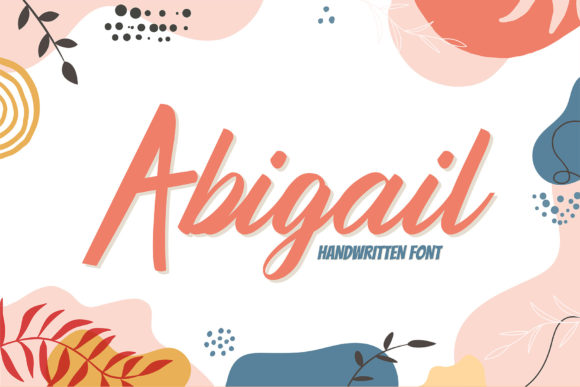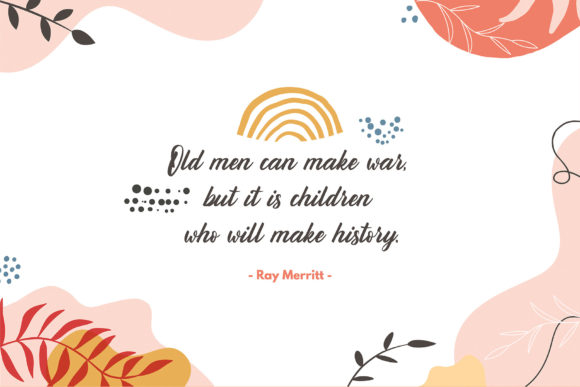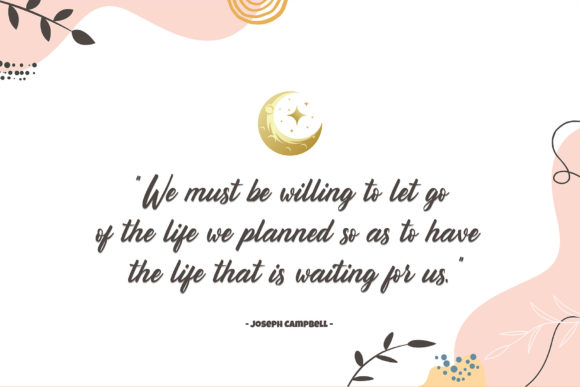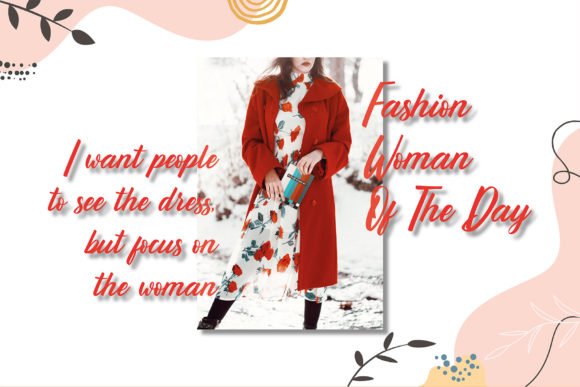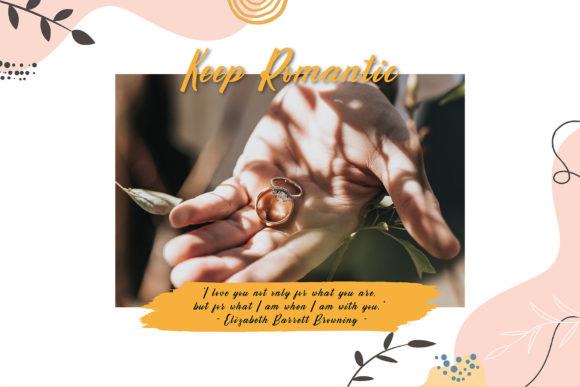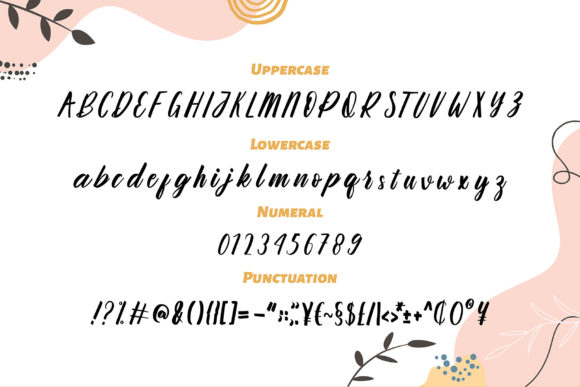
Abigail Font
About Abigail Font
Abigail introduces itself as a charming paint-brushed script font, adding a touch of loveliness and artistic flair to your creative projects. With its versatile appeal, this font is well-suited for an array of design applications, including logos, branding projects, labels, photography, watermarks, special events, and any other lovely projects requiring a beautiful script aesthetic.
The paint-brushed script design of Abigail sets it apart, infusing a sense of organic and handmade authenticity into your text. This unique characteristic makes it an ideal choice for projects that demand a balance between artistic expression and visual appeal.
In the realm of logos and branding, Abigail’s lovely script imparts a distinctive and memorable touch. Its paint-brushed strokes add an artistic dimension, creating a brand identity that is both charming and visually engaging.
For labels and photography, Abigail contributes to a visual language that is both expressive and elegant. The font’s script style seamlessly integrates into these projects, enhancing the overall aesthetic and bringing a sense of beauty to the design.
In watermark applications, Abigail adds a personalized and artistic signature to your images or creations. Its script design serves as a delightful touch, ensuring that your work is not only protected but also presented with a unique and stylish flair.
Special events, such as weddings or celebrations, benefit from the beautiful script taste of Abigail. The font effortlessly conveys a sense of charm, making it suitable for invitations, greeting cards, and other event-related materials.
In essence, Abigail is not just a font; it’s a creative companion for designers seeking a lovely and paint-brushed script that adds character and charm to their projects. Its versatility allows it to seamlessly adapt to various design contexts, making every project an expression of beauty and individuality.